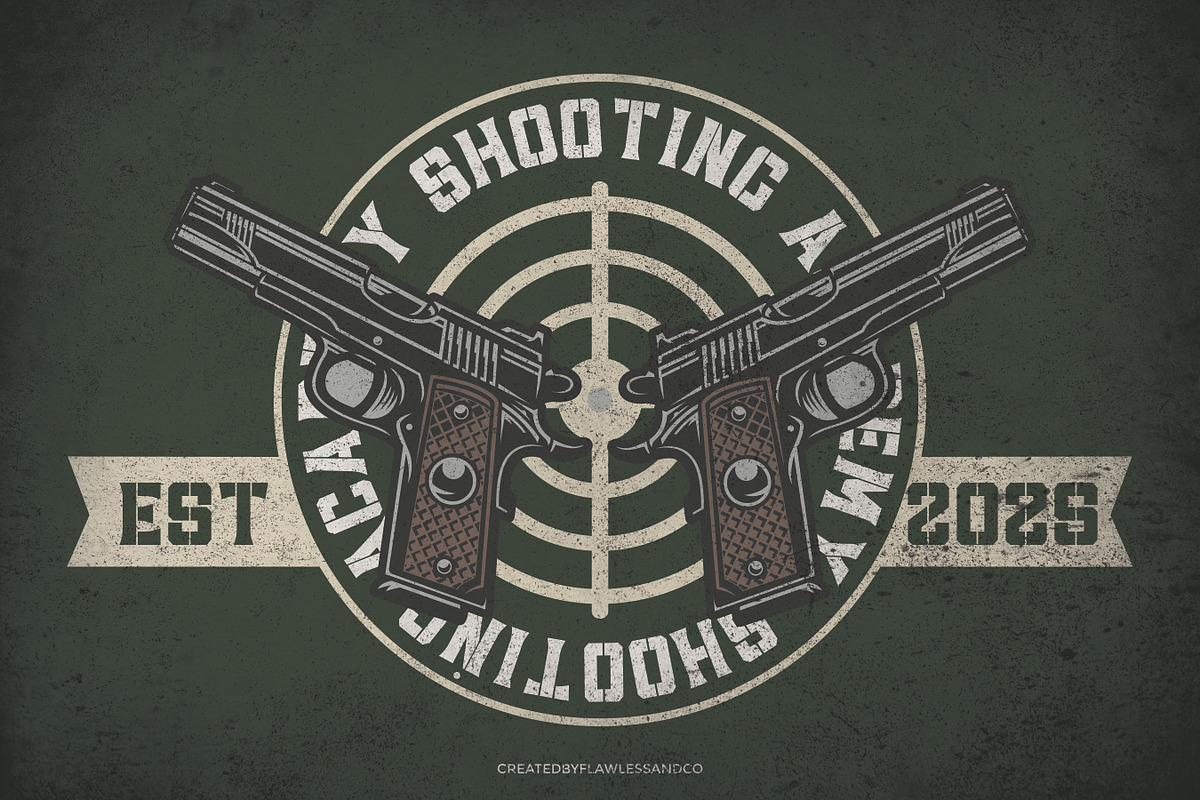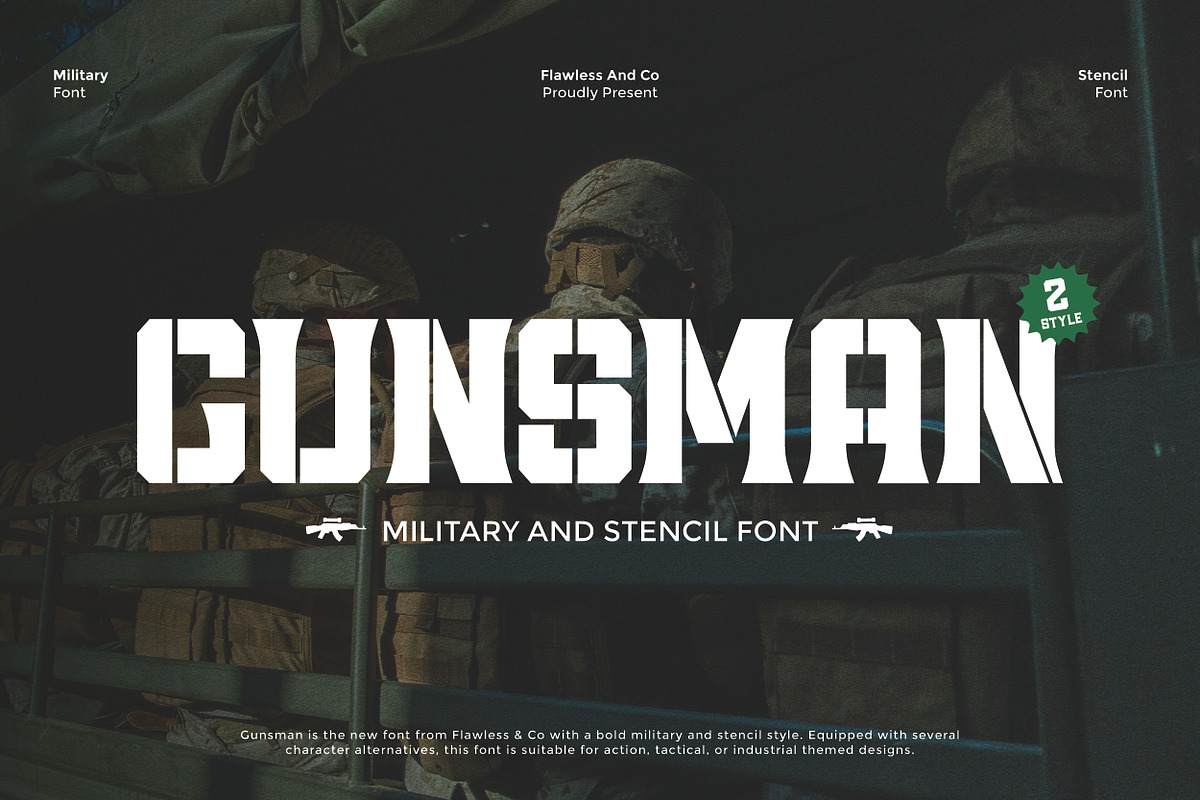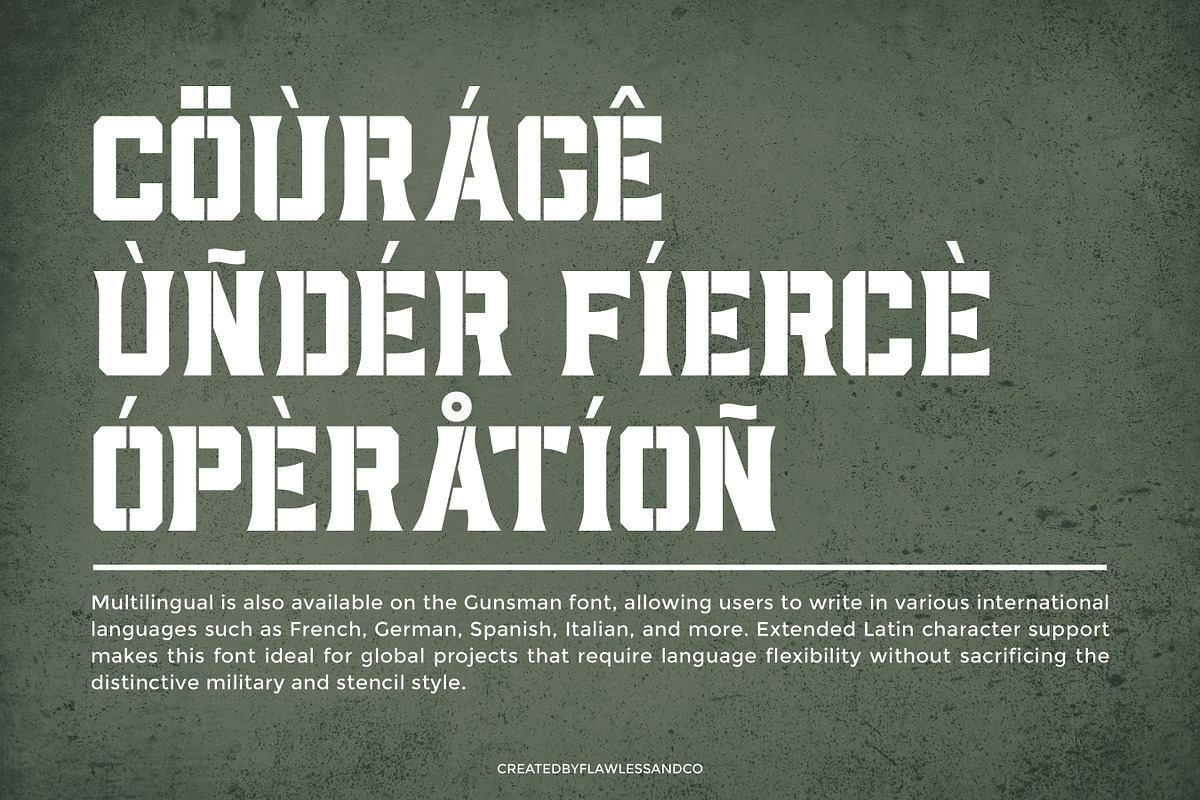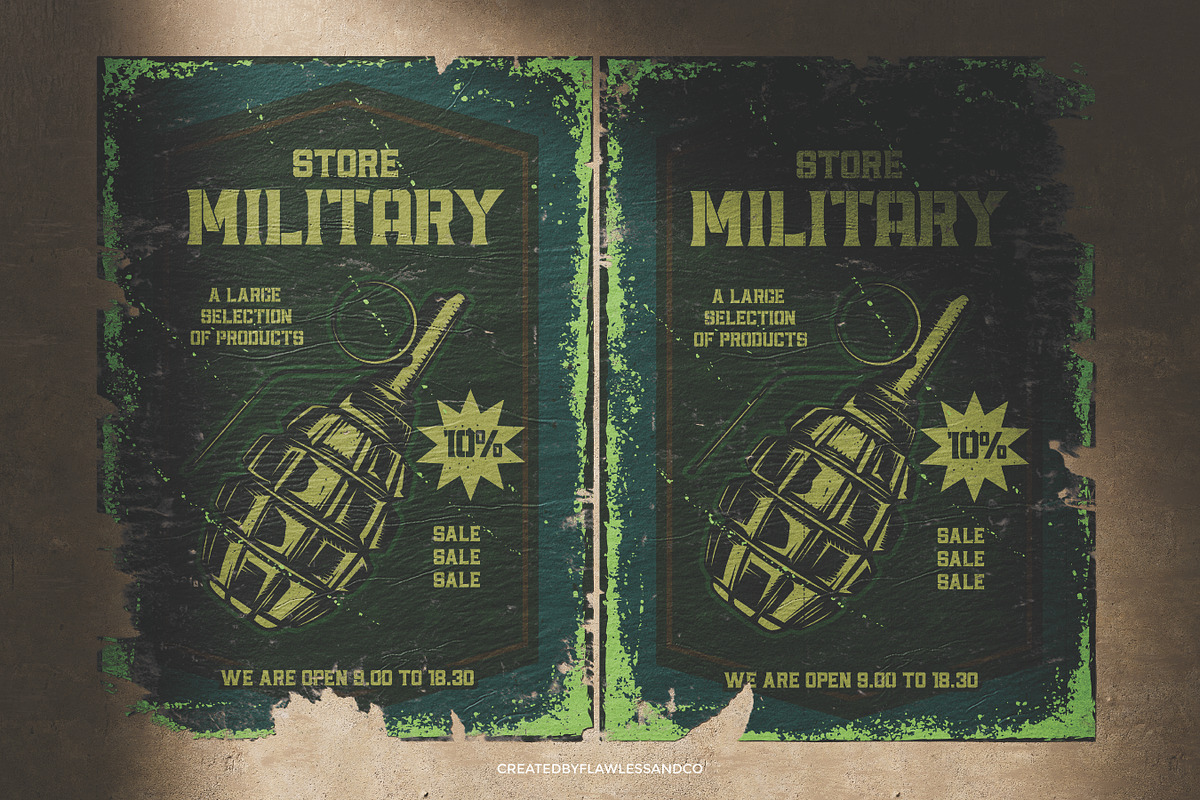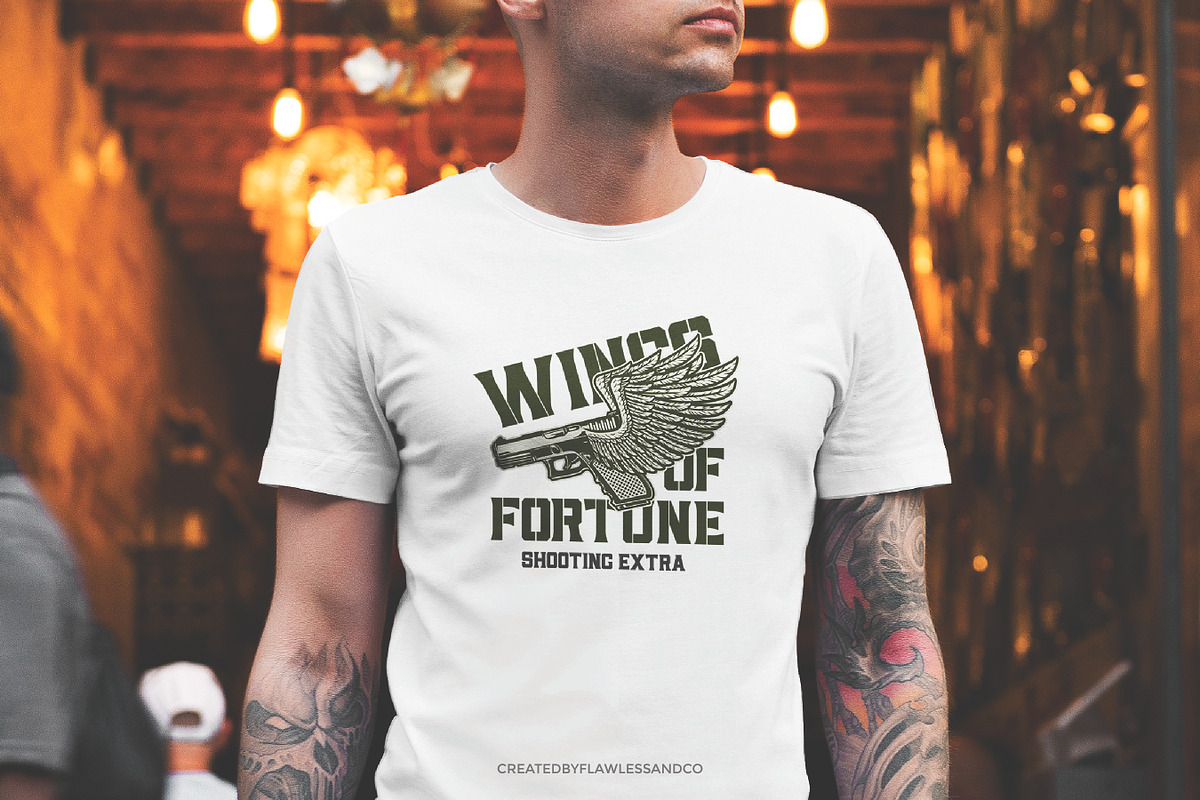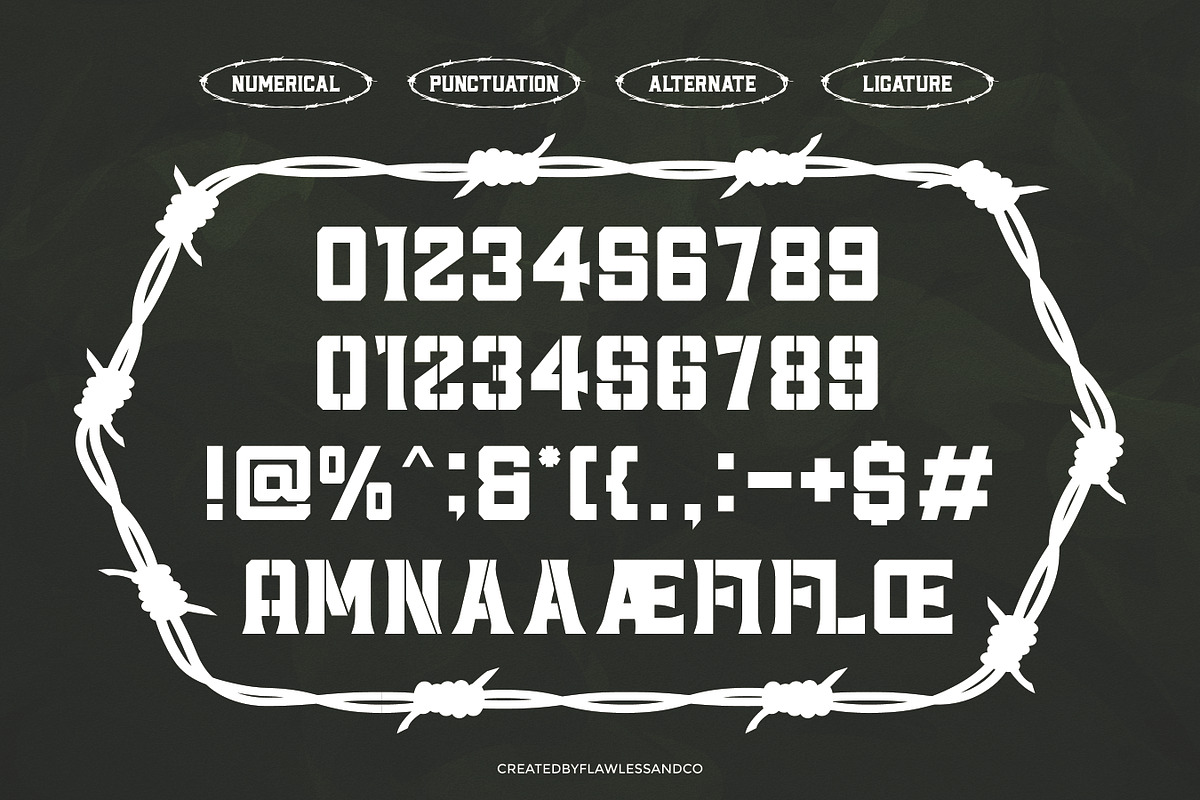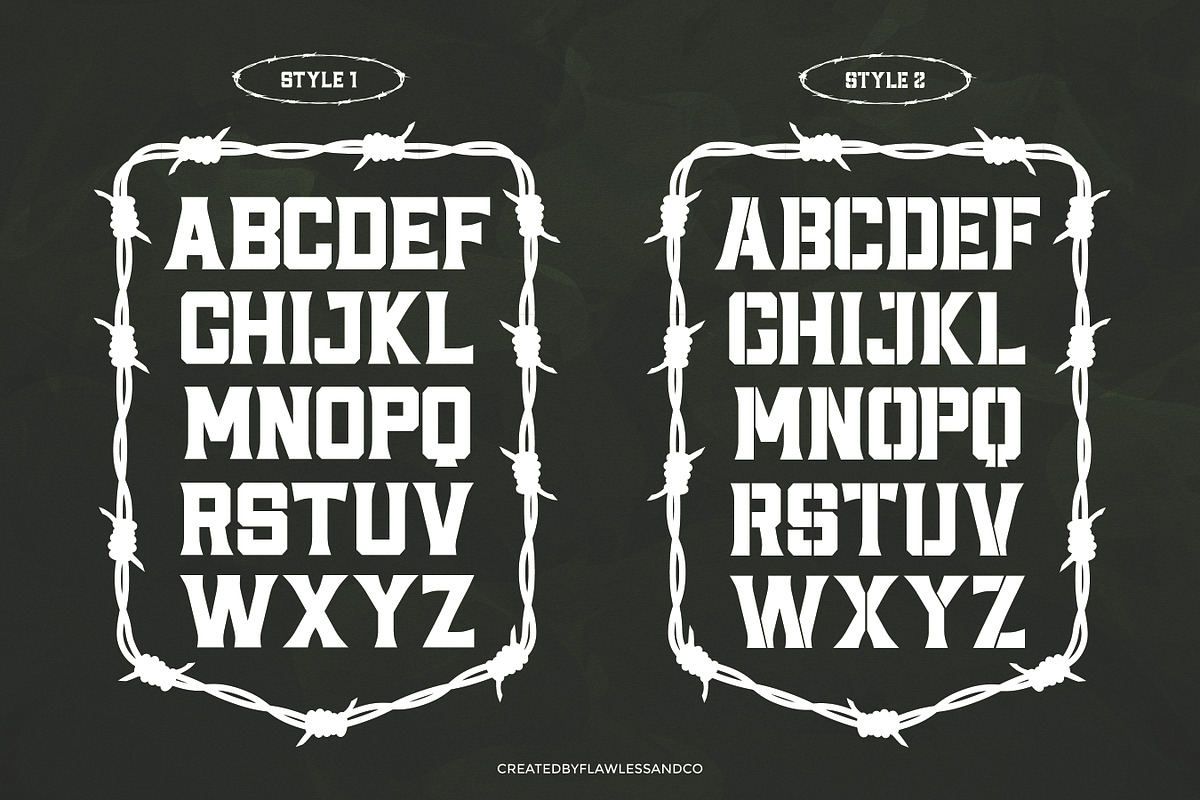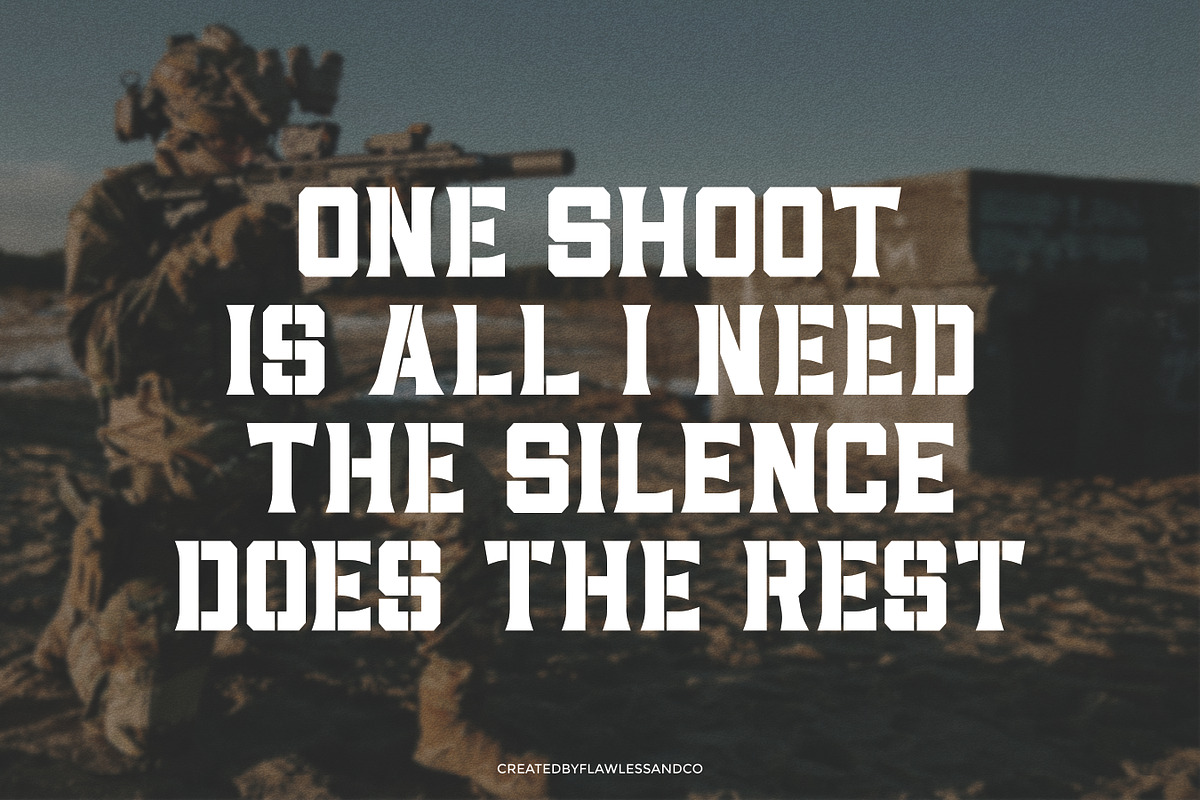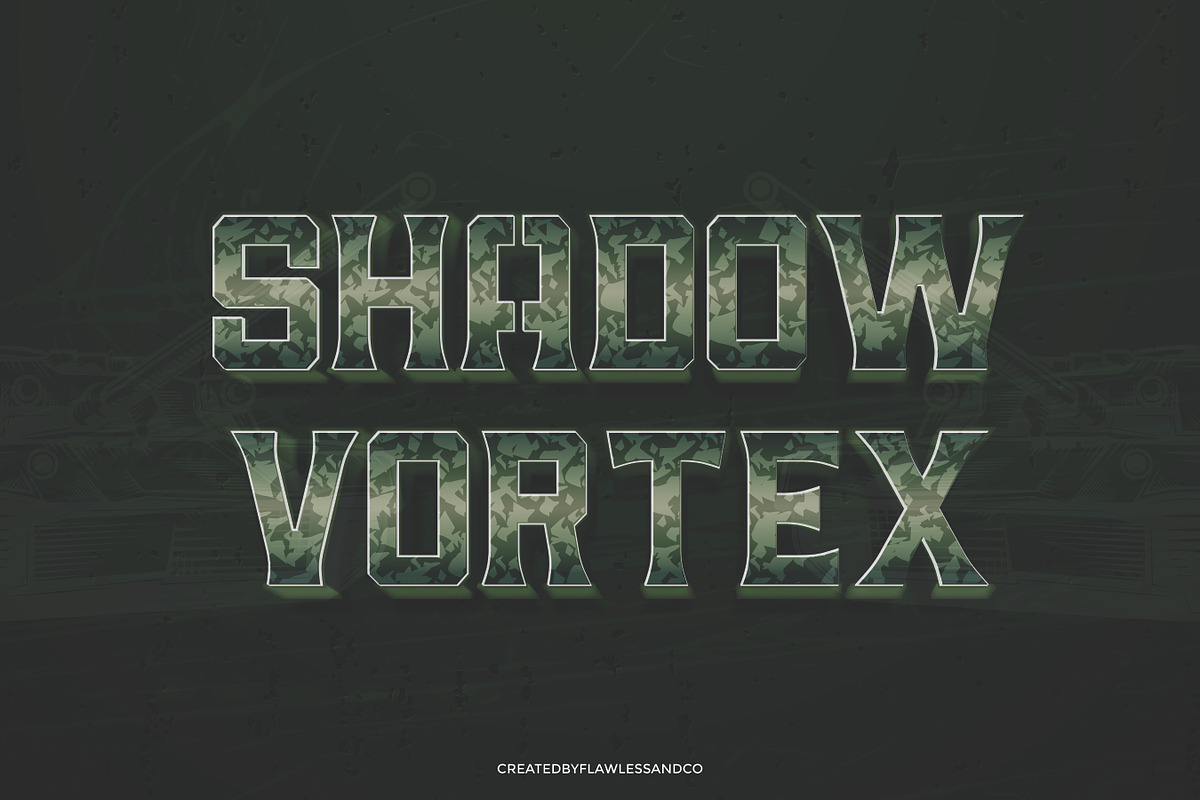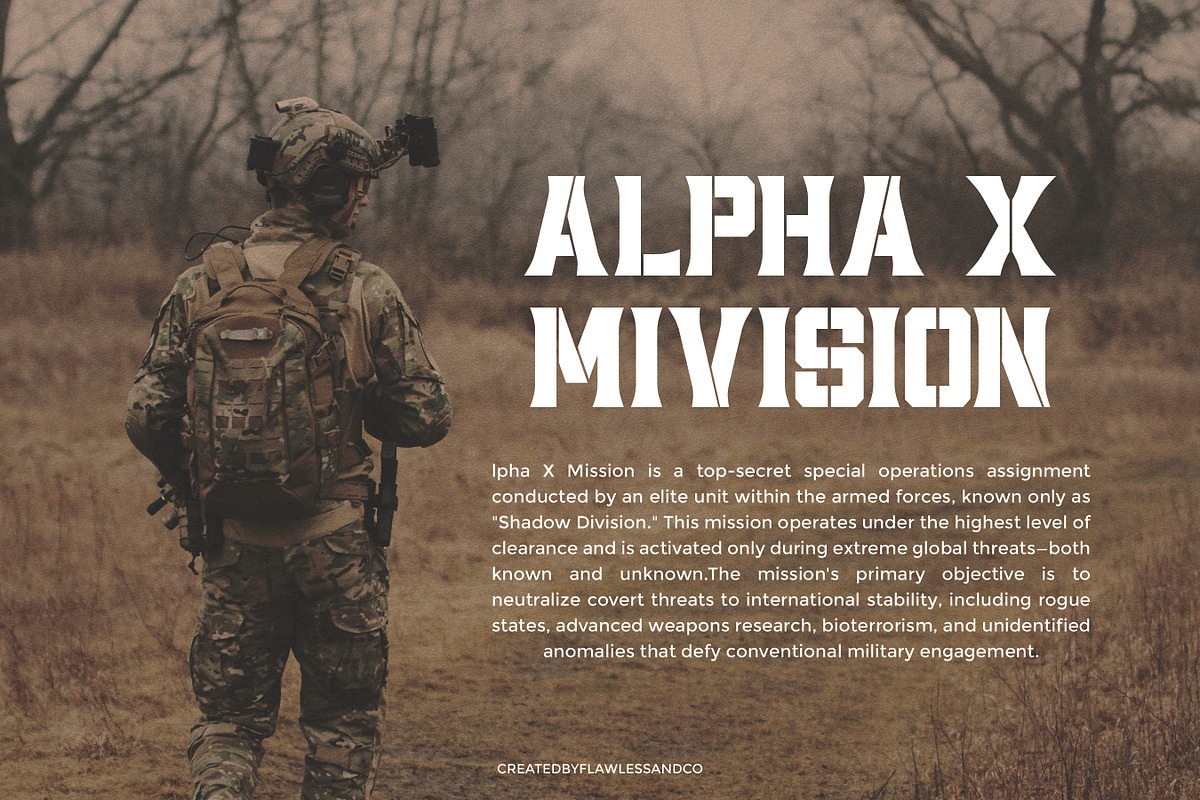
Gunsman - Millitary Display Serif Fo
Gunsman - Is a Military and Stencil Font
Gunsman is a bold military and stencil-style font, designed for strength, precision, and authority. With its sharp cuts and rugged edges, it embodies the toughness of tactical and industrial aesthetics. Equipped with multiple character alternatives, this font is perfect for action-themed projects, combat-inspired branding, army posters, tactical gear packaging, survival guides, or any design that demands a strong military presence. Whether you’re working on war-themed visuals, extreme sports branding, or gritty urban designs, Gunsman delivers power and impact in every letter.
Who Should Use Gunsman?
Gunsman is made for designers, creatives, and brands who want to project strength, precision, and authority in their work. This font is perfect for:
- Military, tactical, and combat-themed branding projects
- Outdoor adventure and survival gear packaging
- Action movie posters and gaming titles
- Sports teams and extreme sports merchandise
- Urban streetwear and industrial-style designs
A Must-Have Font for Branding and Logo Creators and Designers
Gunsman is an essential choice for creatives who value strong, impactful typography. With its bold style and distinctive details, this font elevates brand and logo designs, helping you create visuals that are memorable, versatile, and impossible to ignore.
Why Choose Gunsman for Brand and Logo Projects?
Gunsman is crafted to bring power, precision, and bold character to your brand identity. Its striking letterforms ensure your logo commands attention, while maintaining clarity and professionalism across various applications. Perfect for brands that want to stand out with confidence and timeless appeal.
Suitable For:
- Military and tactical branding projects
- Army and defense-themed posters
- Adventure, survival, and outdoor gear packaging
- Video game titles with military or combat themes
- Stencil-style signage and wayfinding
- Bold and rugged headline designs
- Sports, e-sports, and action-themed graphics